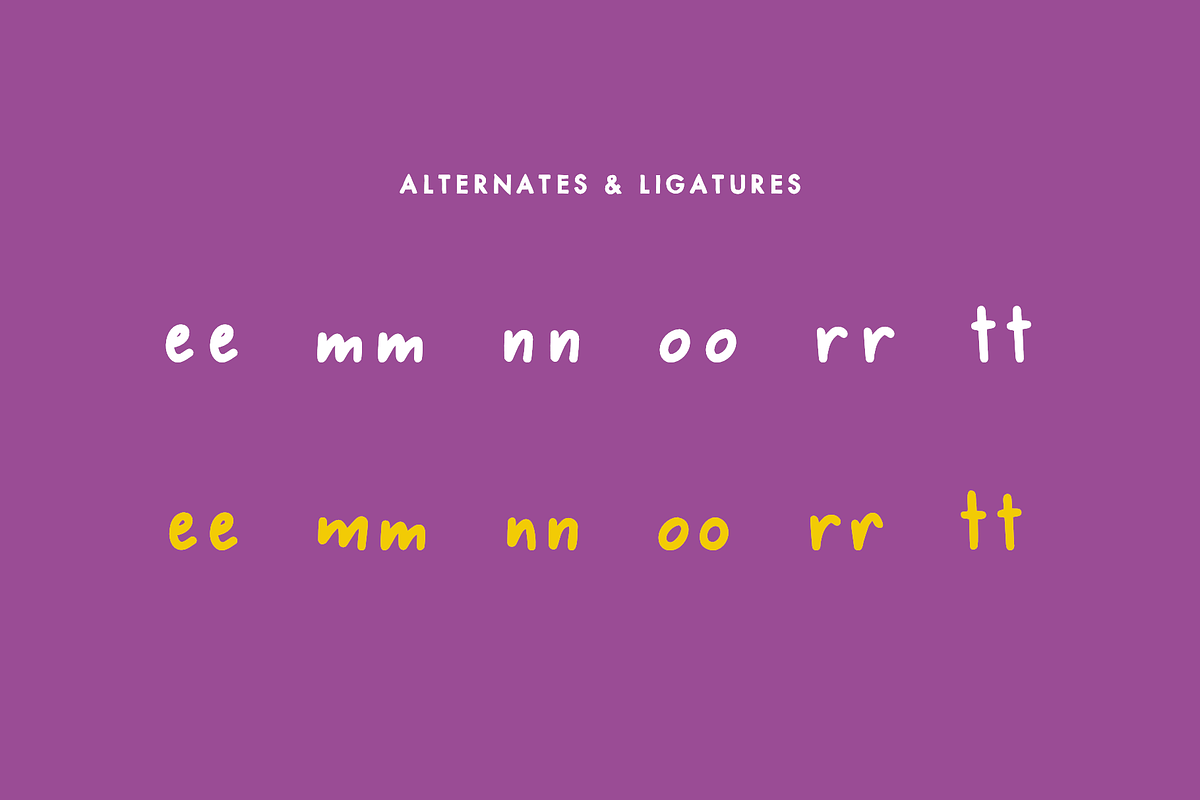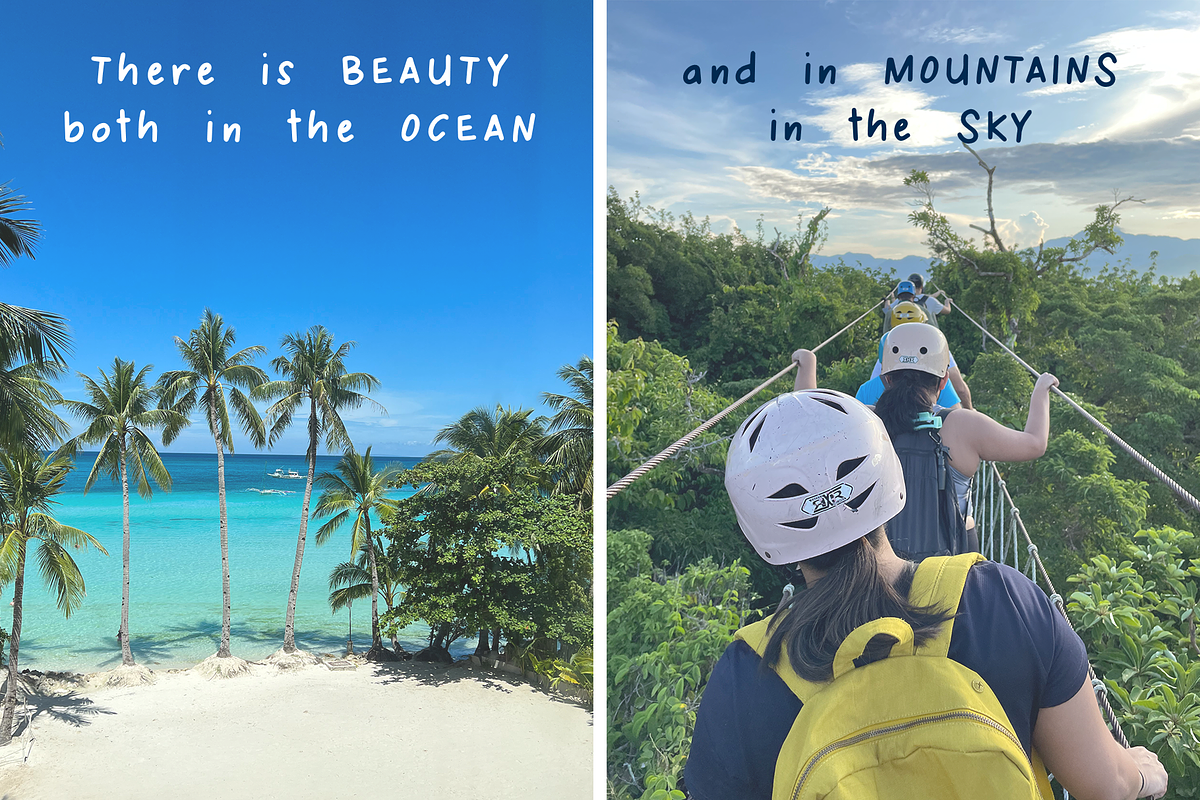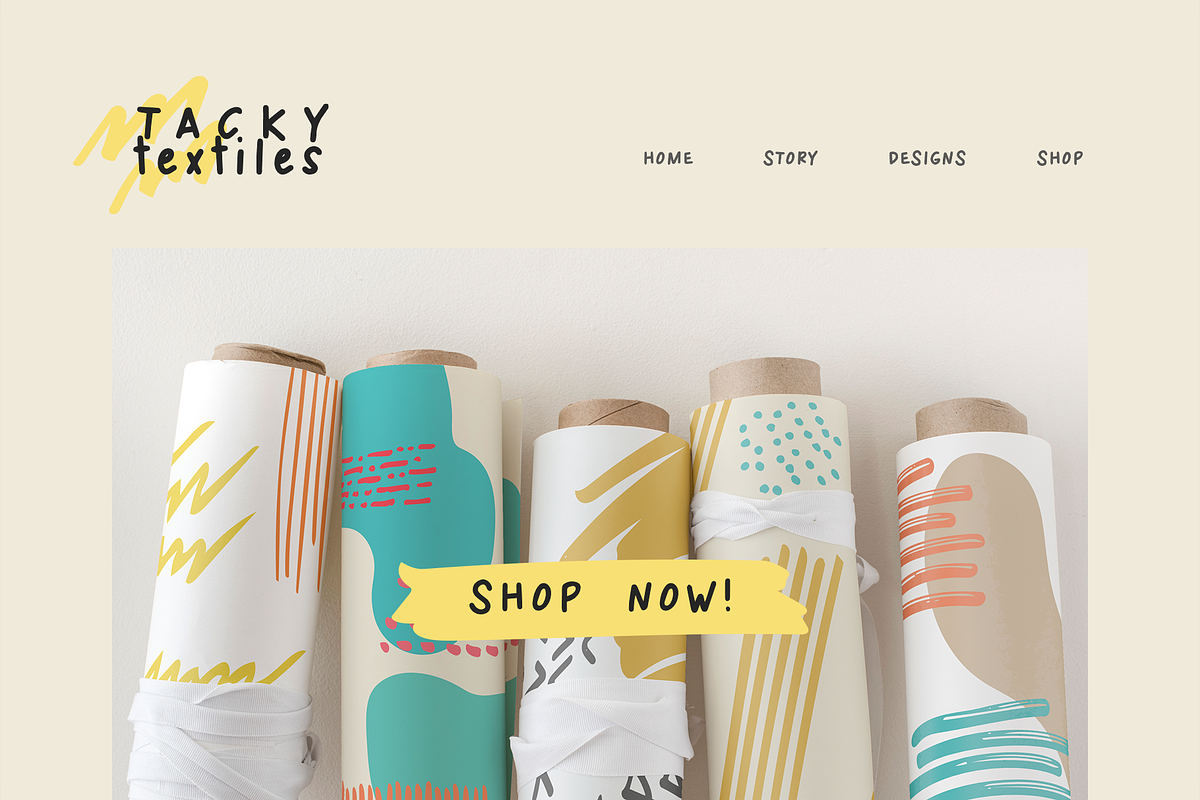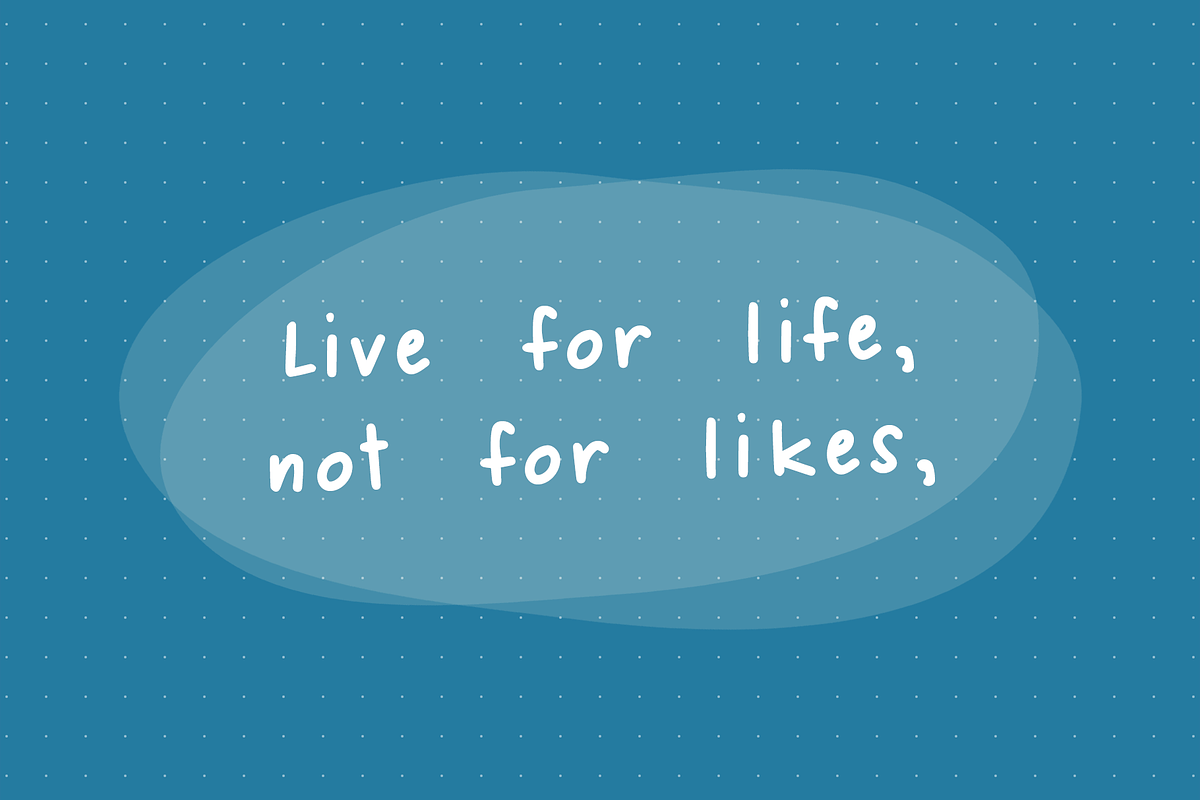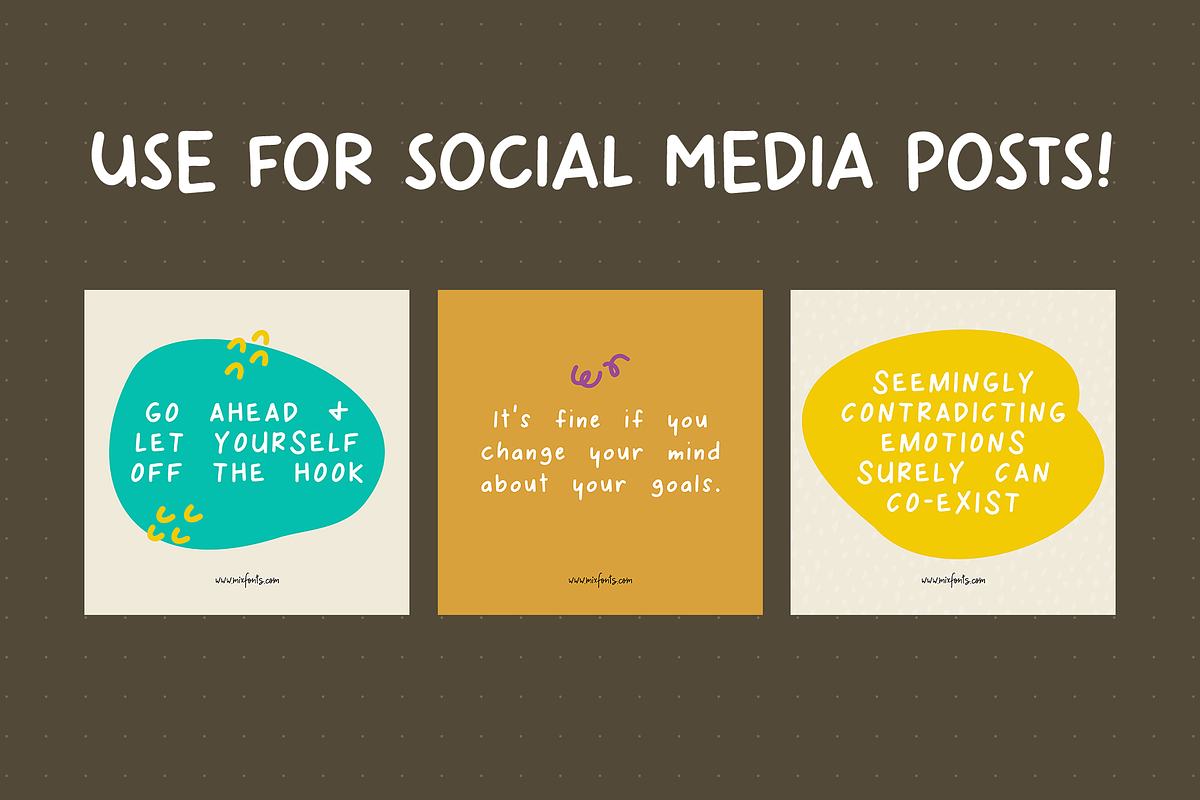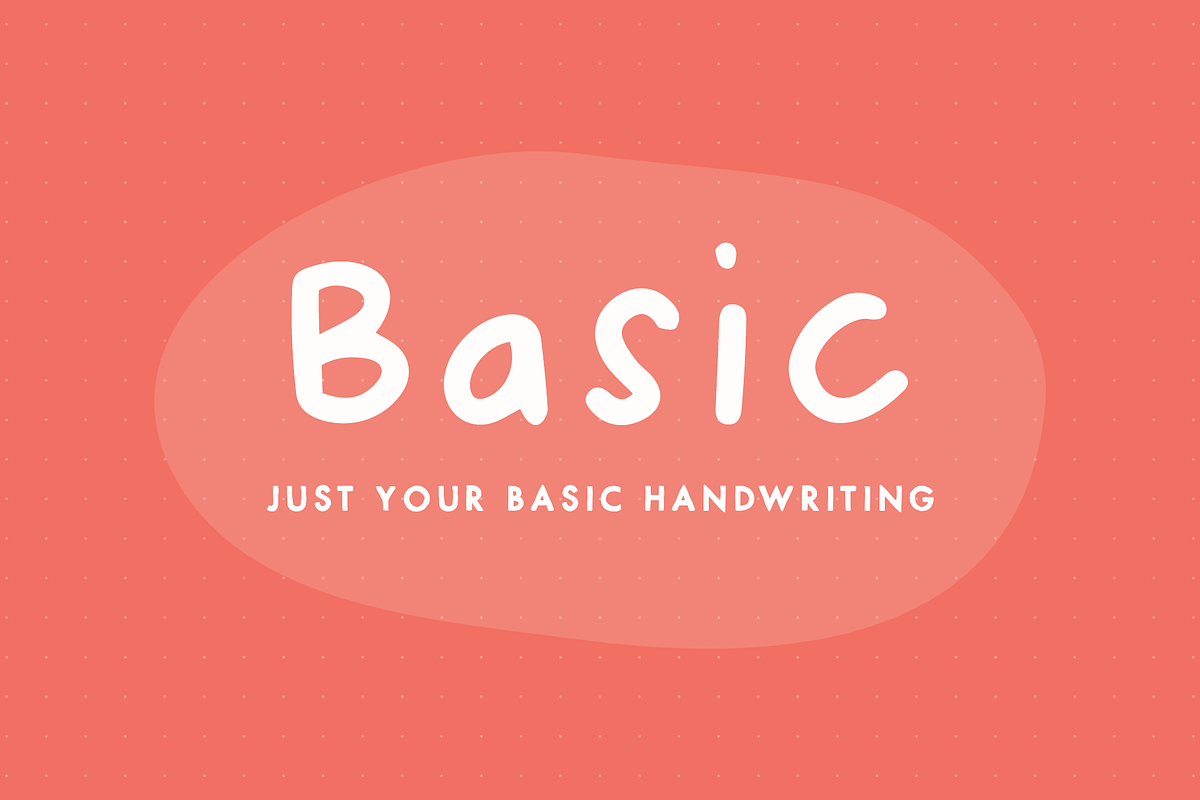
Basic — Just Your Basic Handwriting
MIX BASIC is just your basic everyday handwriting. This font was initially written on a post-it using a fine tip Frixion pen. The font was then digitized, cleaned up, and converted into a font. Since this is basically your everyday handwriting, it has a multitude of creative applications. Think label design, greeting cards, social media quotes, handwritten notes replication, and more. Use as you please!
Alternates & Ligatures: & R a e i m o u y ee mm nn oo rr tt